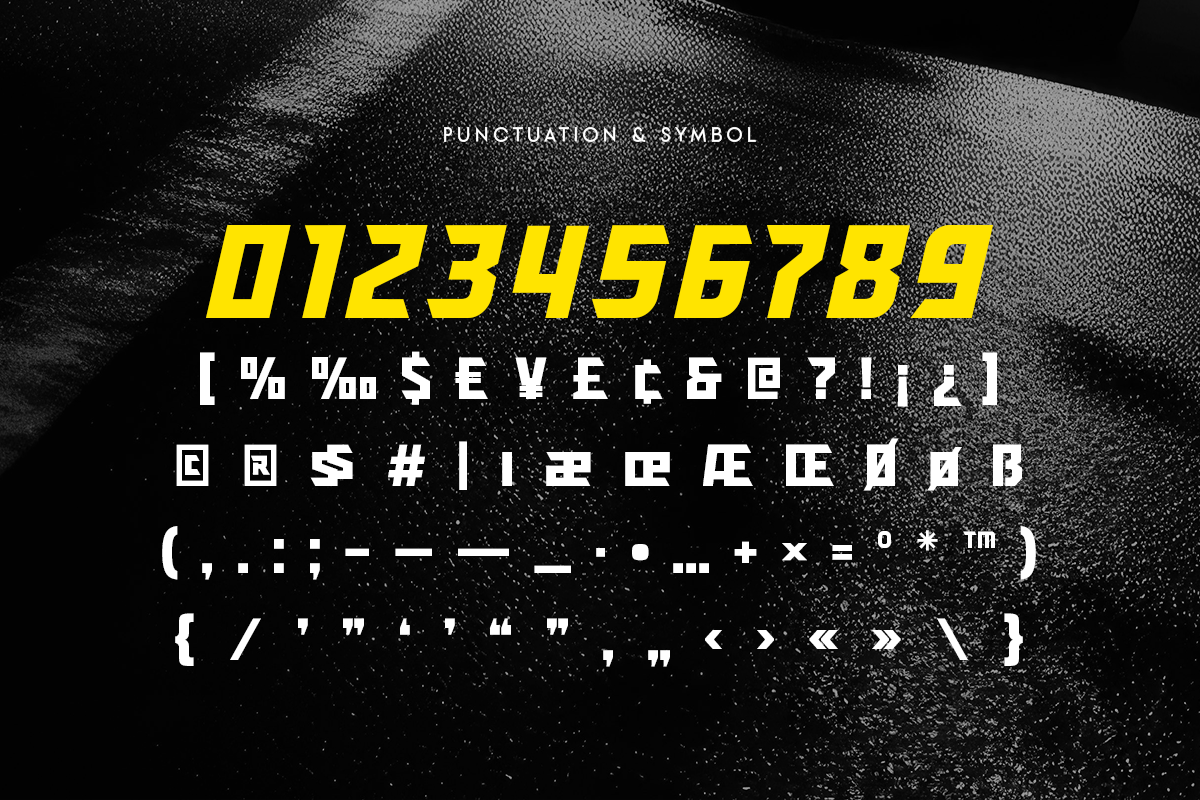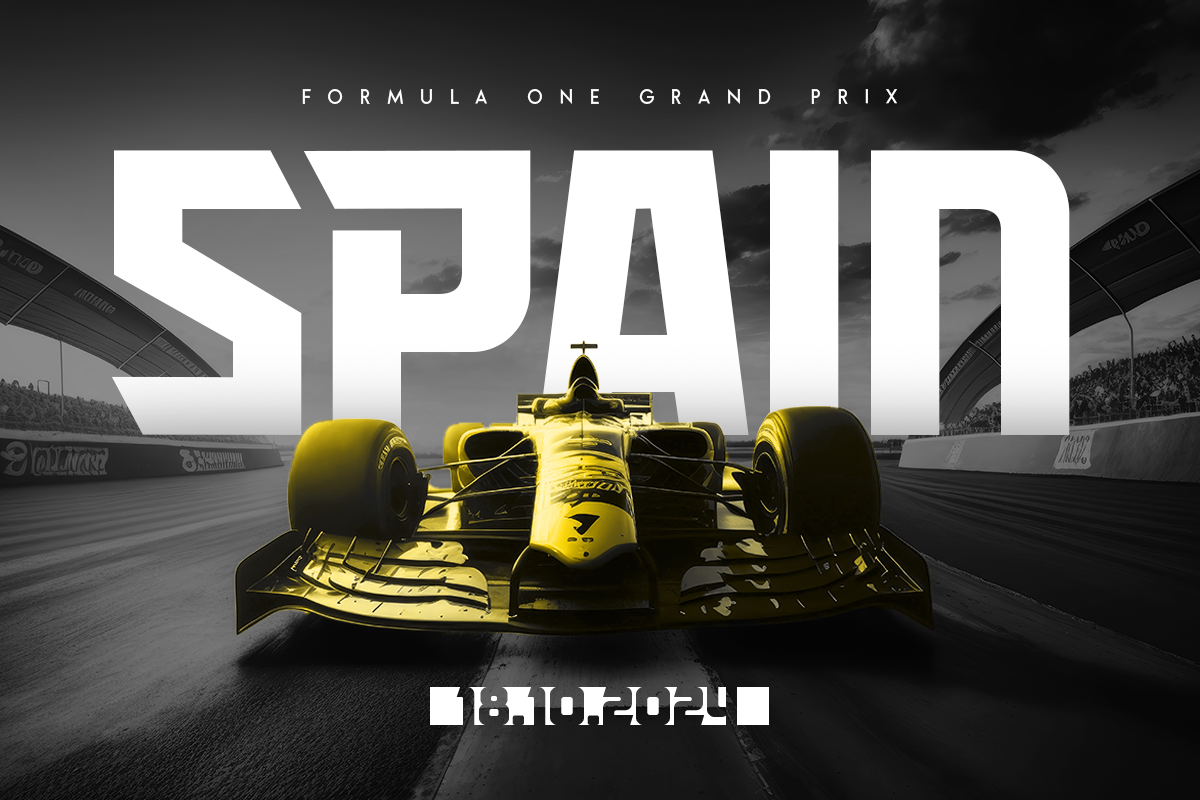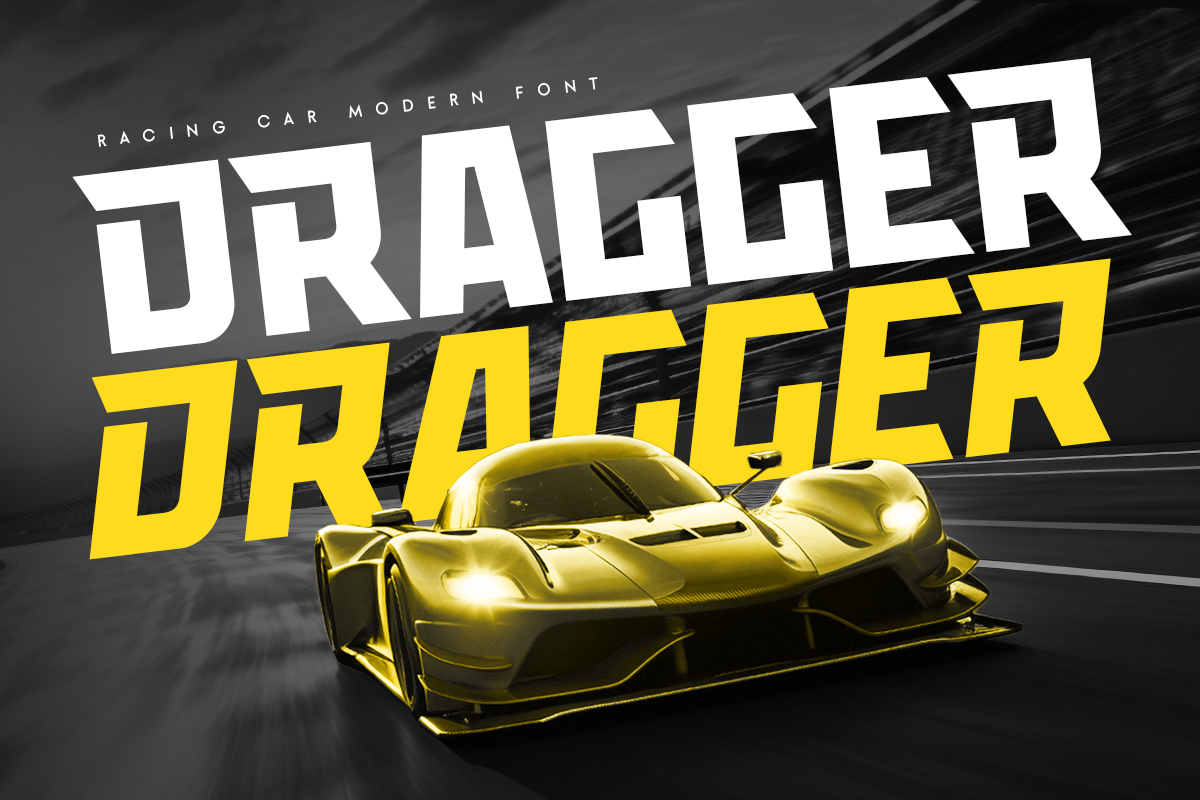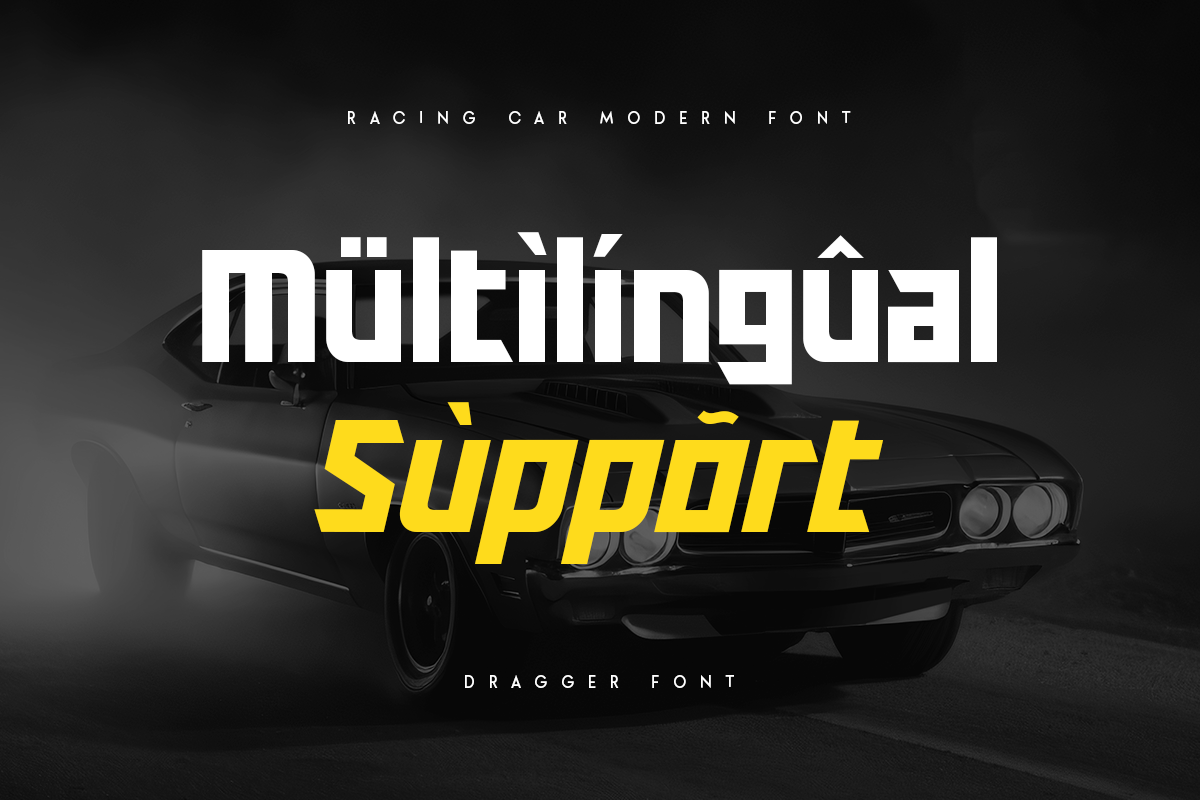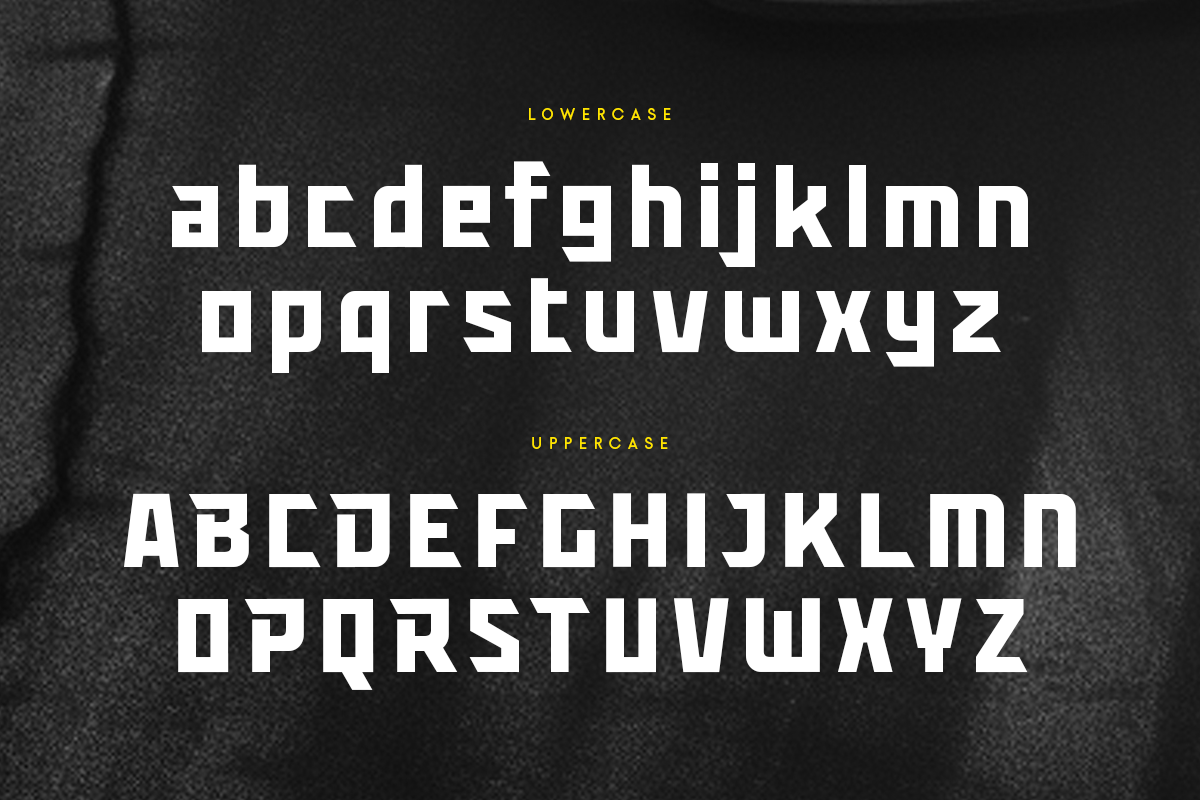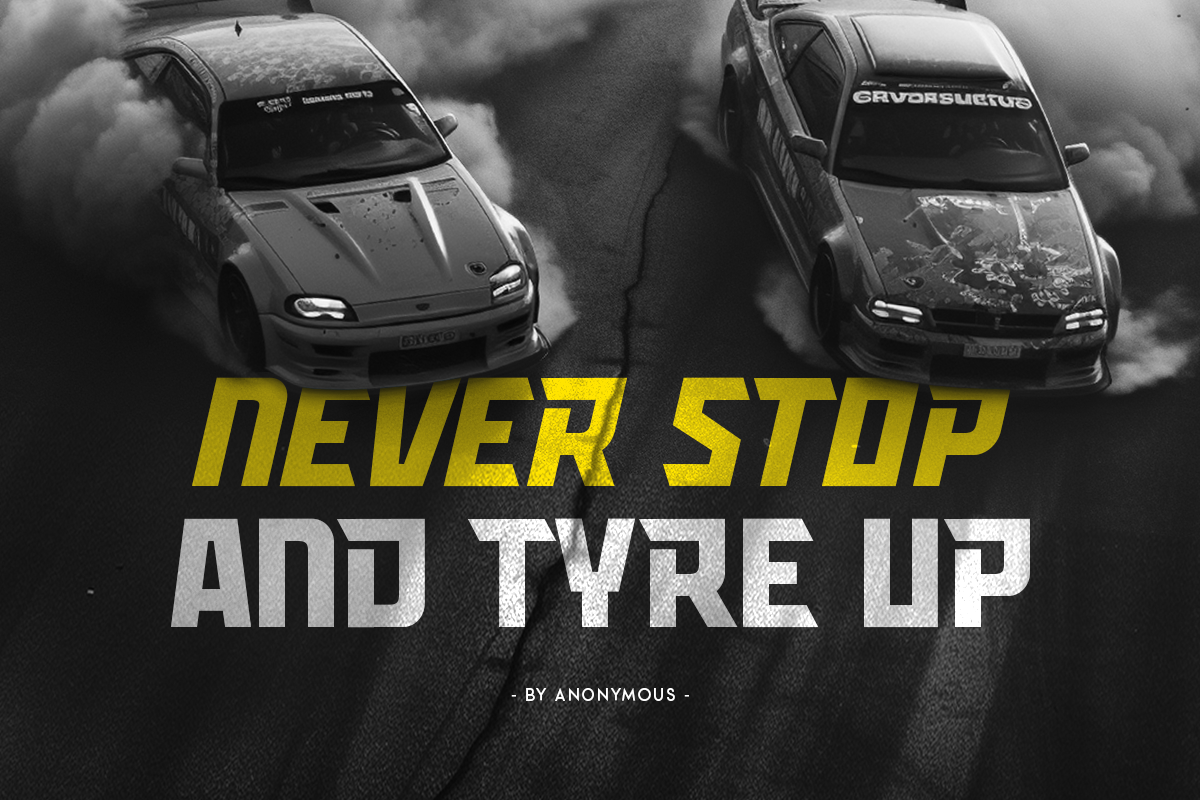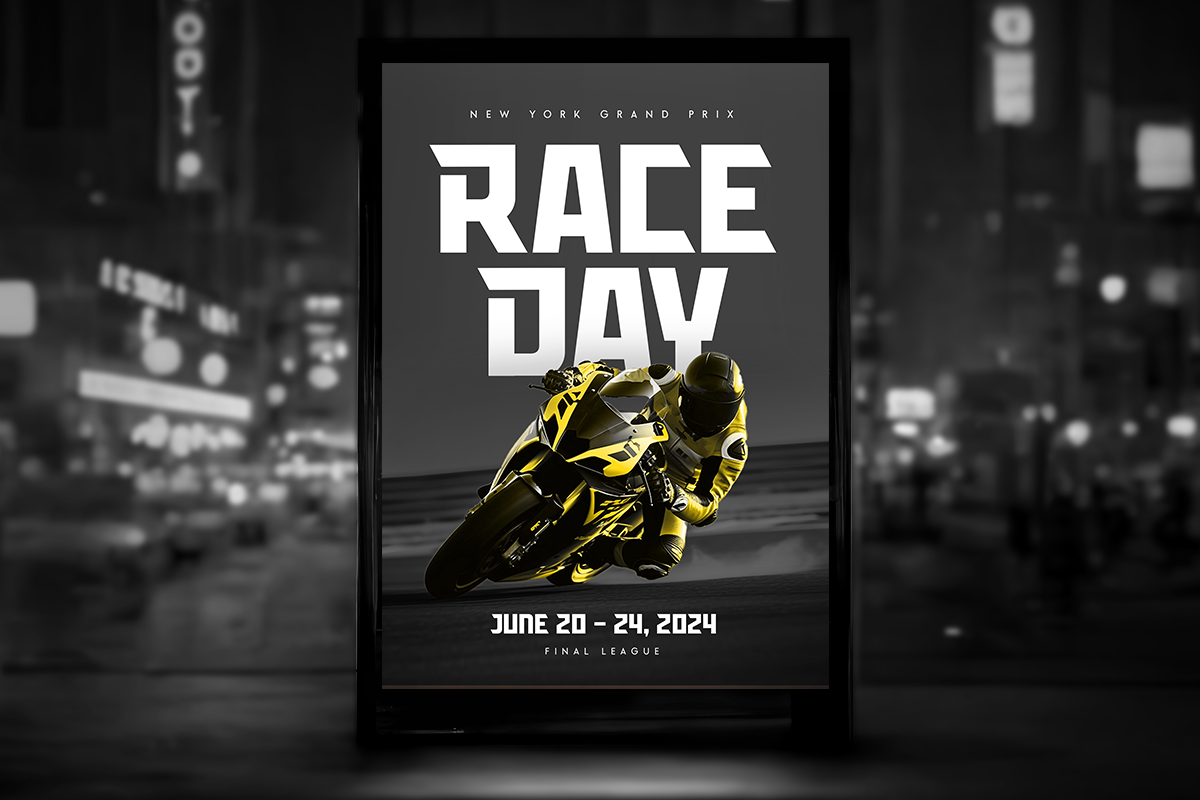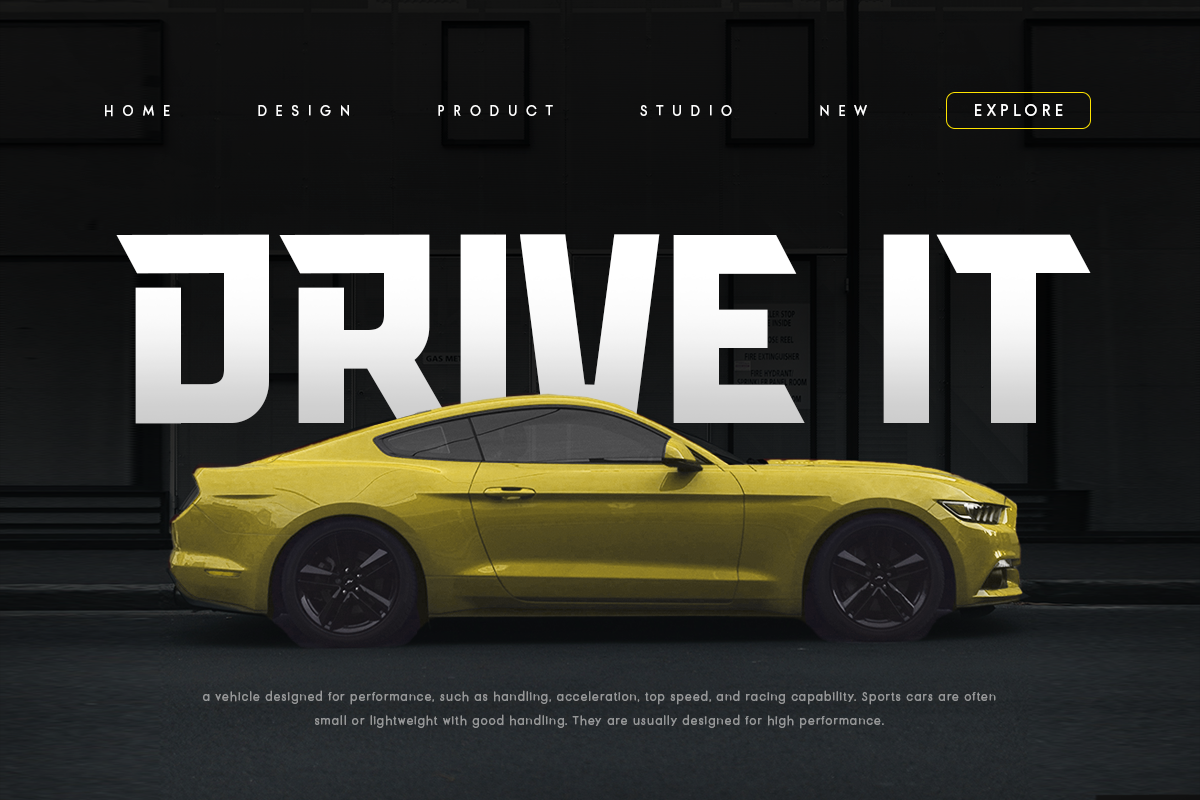
Dragger - Sport Racing Car Font
Dragger, a Sport Racing Car Font that created special for Branding, Title and more stand out typography for sport and action. It's so perfect to add your style and headline overview for sport, technology, actions, and fighting theme. And specially for this font, we crafted for bold action style and modern feels so enjoy to create any project that will show your main idea out.
Dragger Sport Racing Car Font ready with:
- Regular & Italic characters prepared to get best results
- Ready Uppercase and Lowercase characters